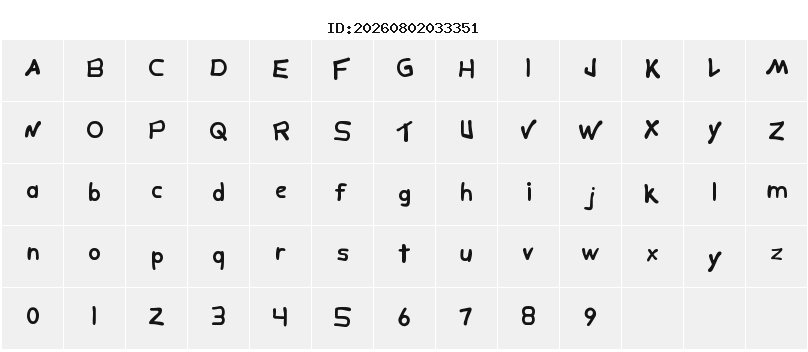
MTV Lowercase 2 Preview
• Font Name: MTV Lowercase 2
• Font ID: MTV Lowercase 2:Version 1.00
• Full Font Name: MTV Lowercase 2
• Version: Version 1.00 August 18, 2015, initial release
• PostScript Name: MTVLowercase2
About MTV Lowercase 2.ttf
MTV Lowercase 2.ttf is a modern, elegant sans-serif font designed for ultimate readability and visual harmony. Perfect for branding, headlines, web design, and print materials.